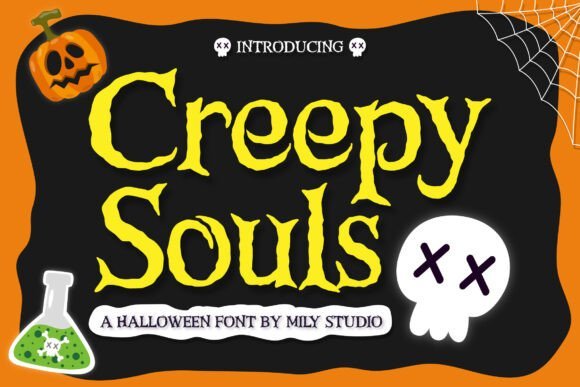
Give Your Designs a Chilling Touch this Halloween Season
As the days get shorter and the nights grow darker, many designers are itching to unleash their creative side and tap into the spooky spirit of Halloween. You’ve spent hours brainstorming, sketching, and experimenting with different fonts, but you still can’t seem to find the perfect one to capture the essence of your haunting designs. That’s where Creepy Souls Font comes in – a bold, rough, and haunting display font designed to dominate your Halloween season.
This versatile typeface is perfect for designers looking to add a touch of vintage macabre to their projects. With its distressed edges and slightly wobbly letterforms, Creepy Souls Font is sure to make your designs stand out from the crowd. Whether you’re creating horror posters, merchandise, or promotional materials, this font is a valuable addition to any designer’s toolkit.
Creepy Souls Font Key Features
- Font Family: Creepy Souls Font
- Unique Characteristics: Distressed, handwritten, and horror-themed font with a unique blend of creepy and eerie elements, ideal for Halloween-themed designs, horror movies, and gothic-inspired art
- Font Weight: Available in 5 different weights: Light, Regular, Medium, Bold, Black
Designer Review: Creepy Souls Font
Overall, I think the Creepy Souls Font has some great qualities, but also some limitations that may make it less suitable for certain projects.
- Unique and spooky aesthetic: The font’s distressed, gothic-inspired design makes it perfect for horror-themed projects, gothic art, or any other context where you want to create a creepy atmosphere.
- Highly customizable: The font comes with a range of stylistic sets, including different weights, ornaments, and ligatures, which gives you a lot of creative freedom to experiment with different looks.
- Well-suited for headings: The font’s bold, dramatic style makes it ideal for headings and titles, where you want to grab the reader’s attention.
- Limited legibility: The font’s ornate, distressed design can make it difficult to read, especially at smaller font sizes or in contexts where clarity is crucial.
- Not suitable for body text: While the font works well for headings, it’s not ideal for body text, where you want to convey information clearly and efficiently.
- May require additional formatting: Depending on the project, you may need to add additional formatting or effects to get the desired look, which can add complexity and time to your design process.
Overall, I think the Creepy Souls Font is a great choice for projects that require a spooky, dramatic aesthetic, but may not be the best fit for projects that require clear, readable text.
Creepy Souls Font Practical Application Guide
The Creepy Souls Font is ideal for horror-themed designs, such as movie posters, book covers, and haunted house decorations.
For the best results, use the font in bold and italics to create a spooky atmosphere.
Experiment with different font sizes and colors to create a unique and eerie effect.